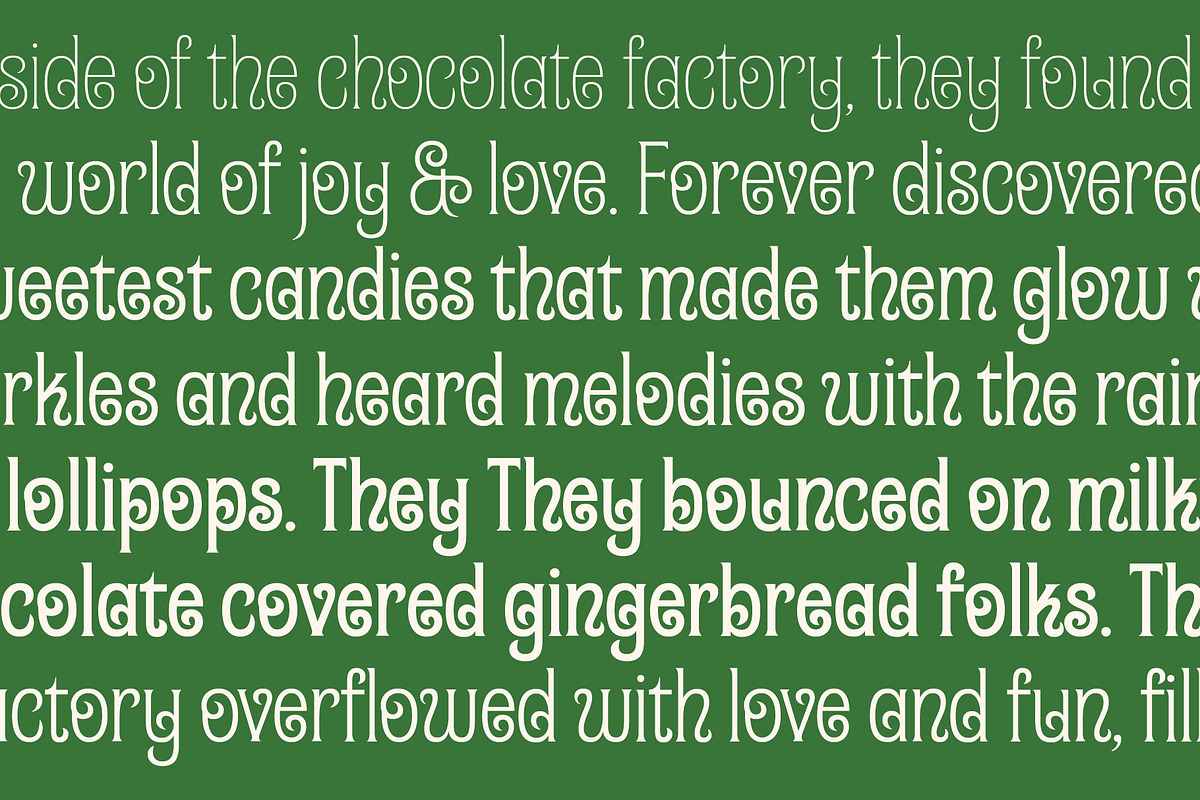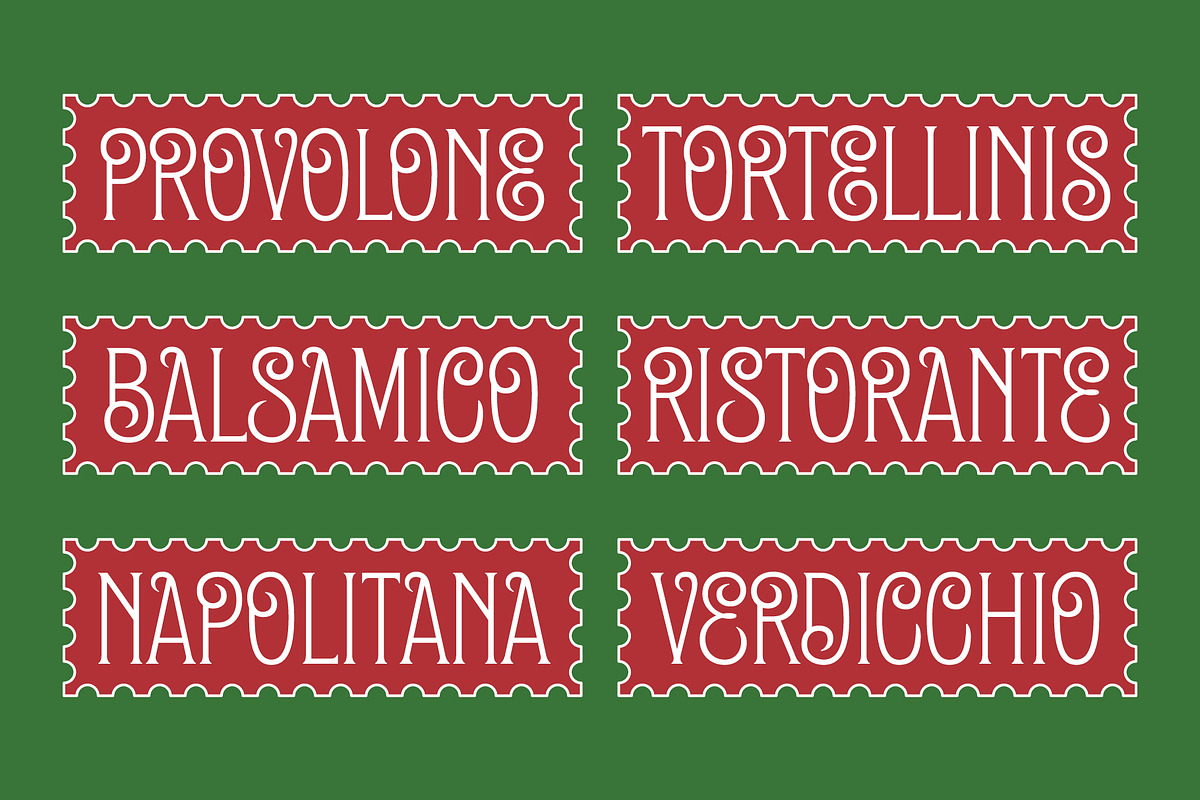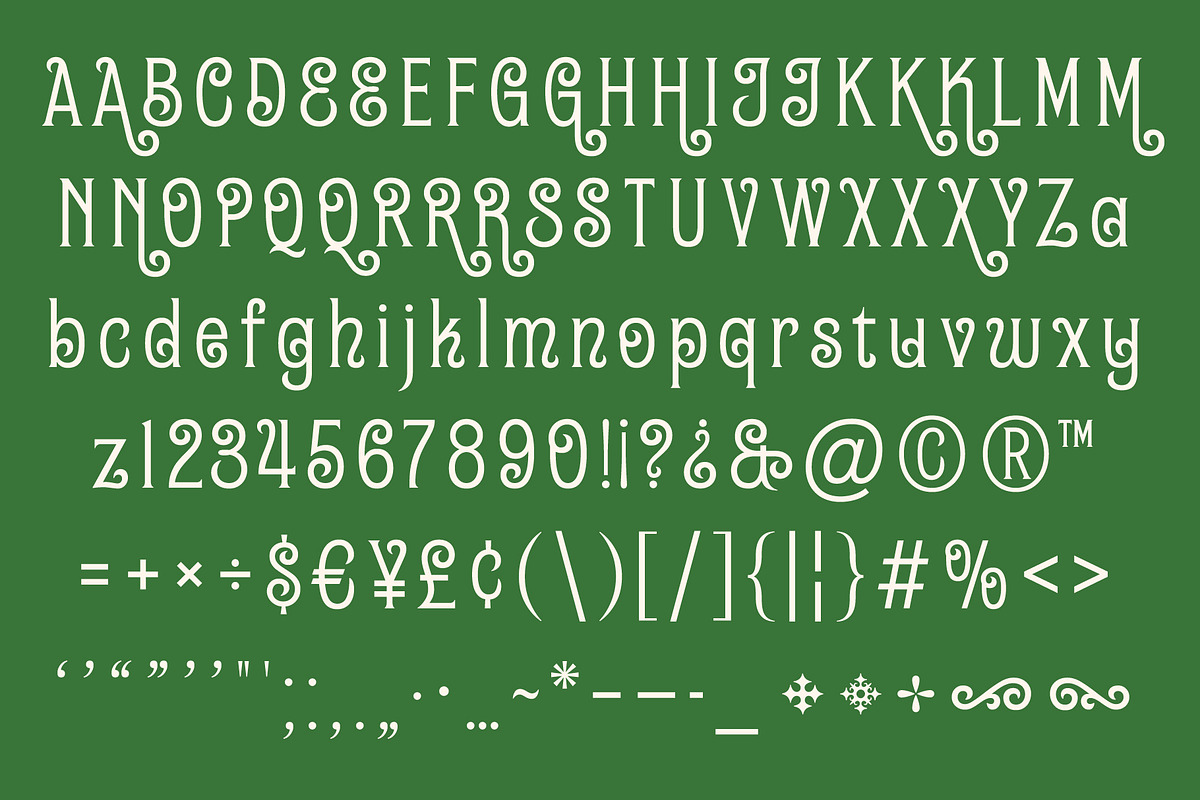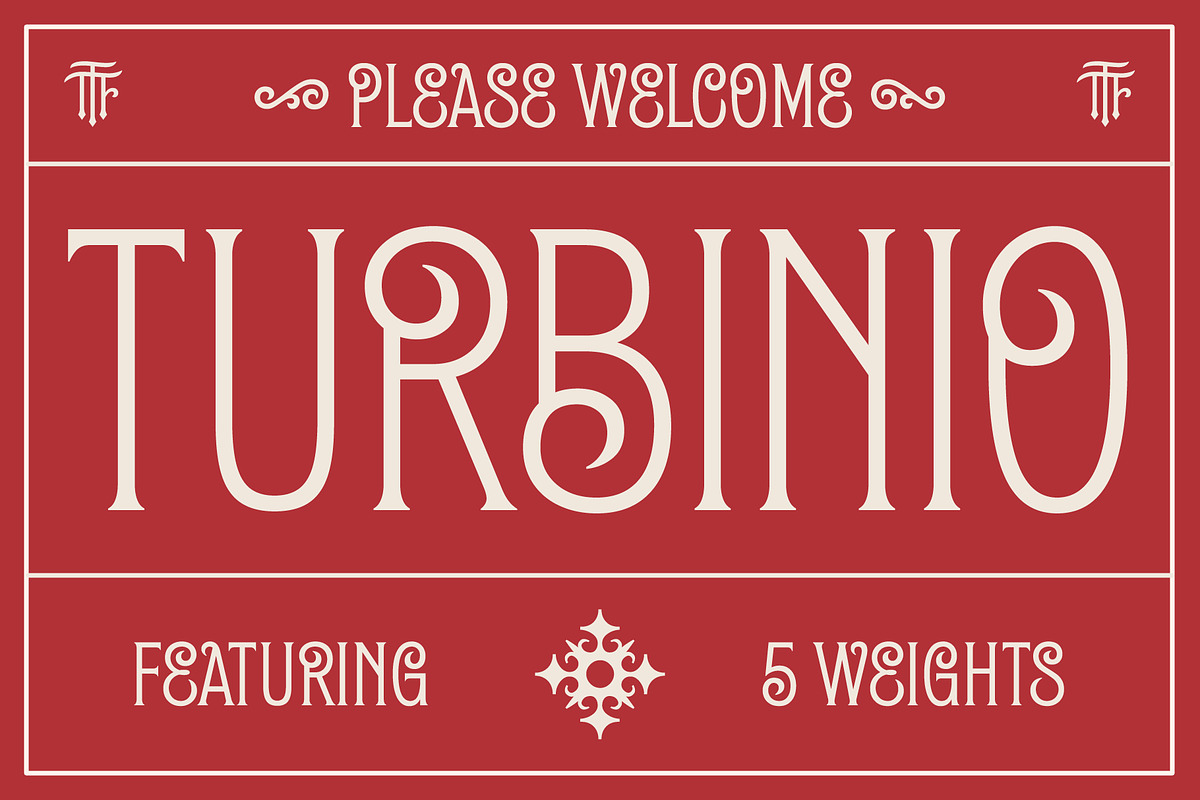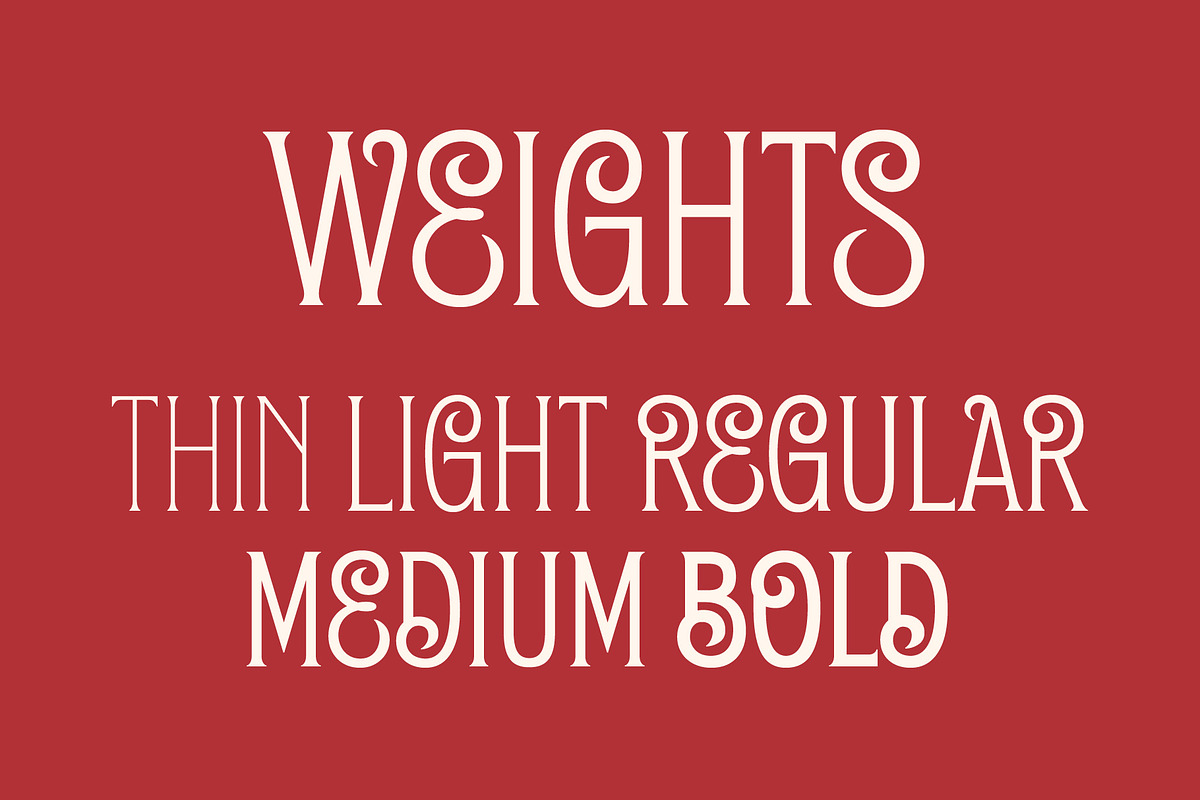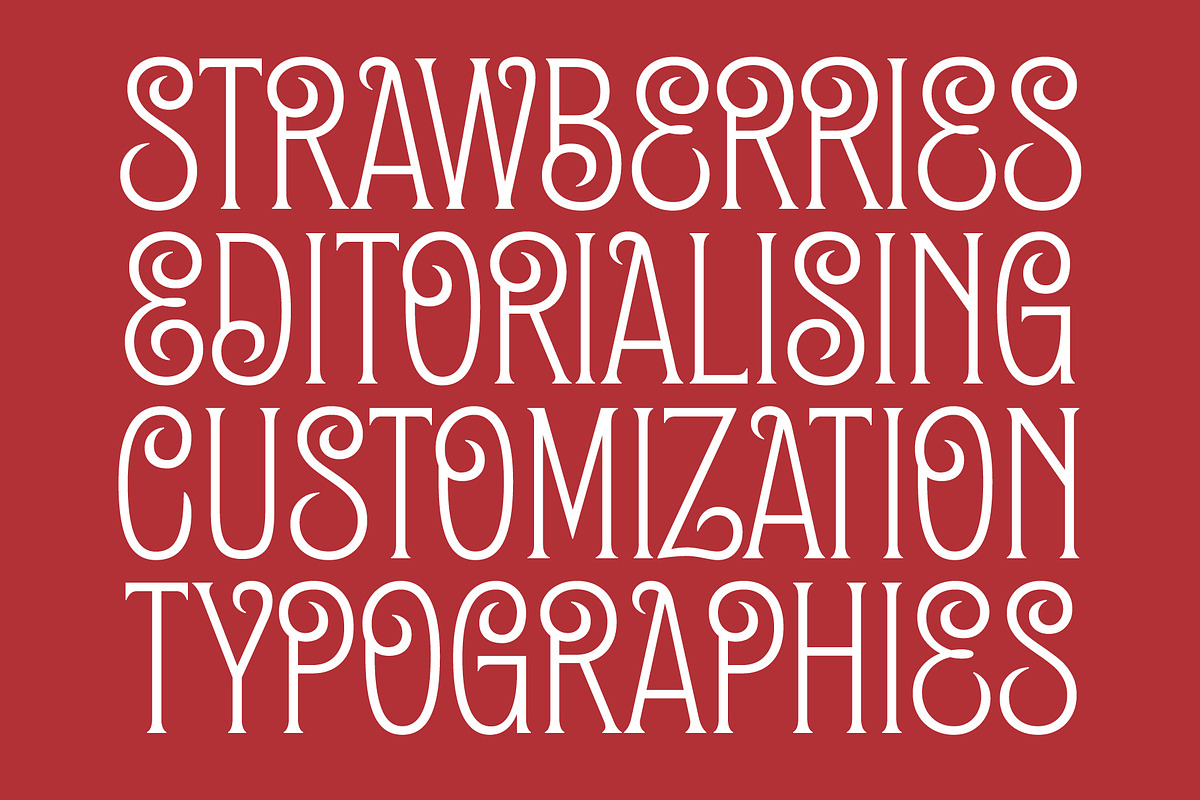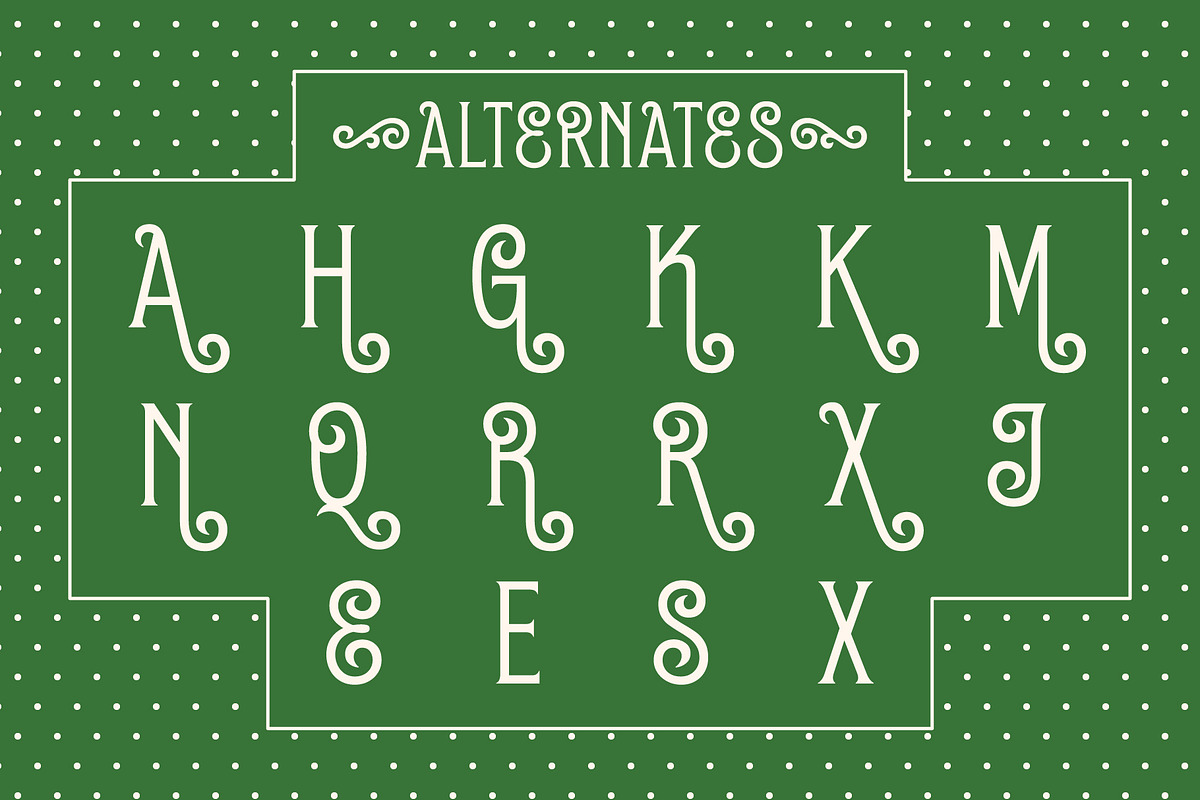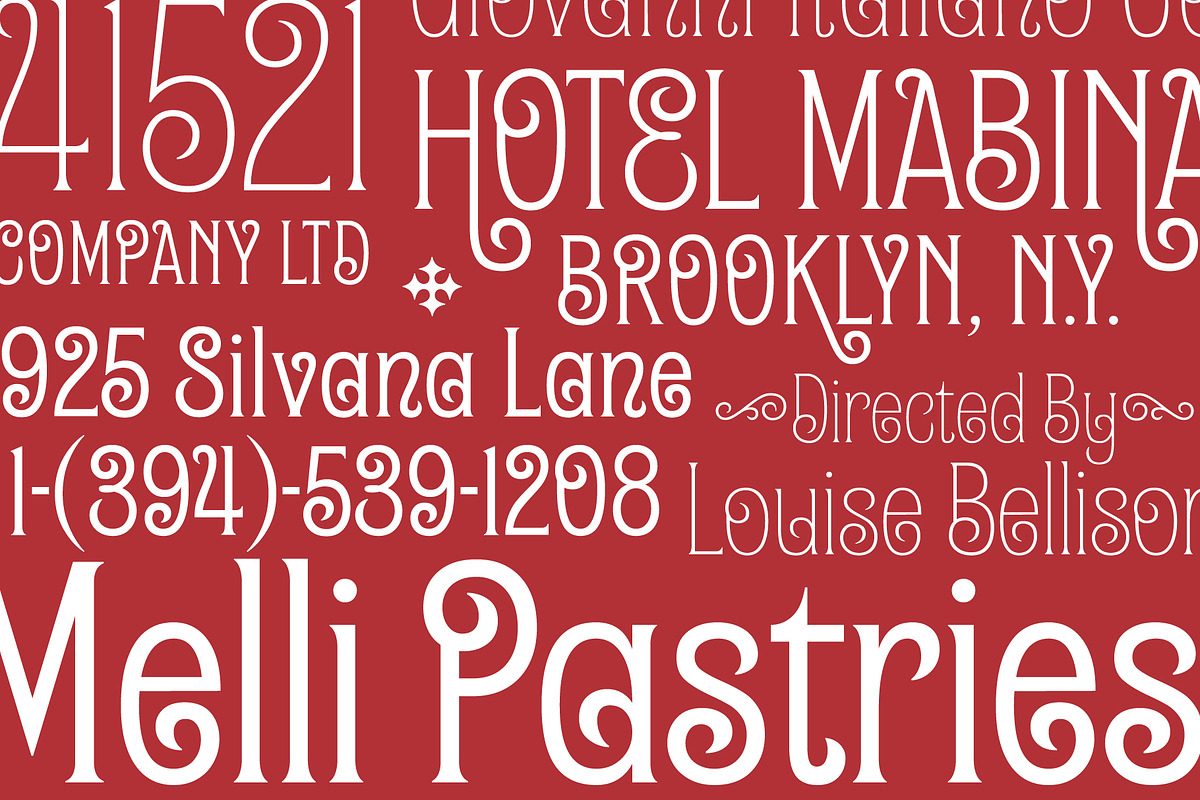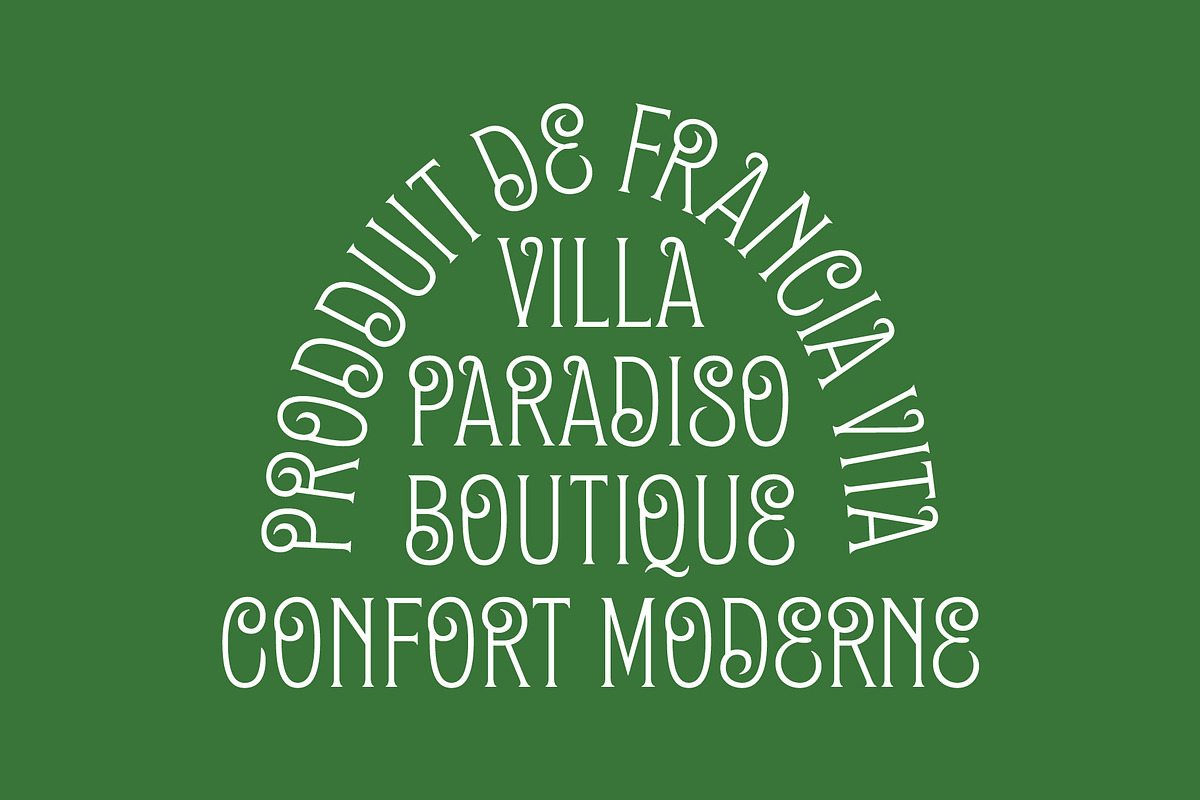
Turbinio - Variable Italian Font
I had the pleasure of serving as a teaching assistant for Kel Troughton’s 2024 Introduction to Modern Type Design online workshop at the Letterform Archive. During this 10-week course, I thought it would be fun to join along the class and set a goal to create a display typeface inspired by early 1900s European hotel signage and food packaging.
Give a grand welcome to Turbinio, a typeface featuring graceful, swirling letters that add a sense of refinement and sophistication to any project. Available in five weights—thin, light, regular, medium, and bold—and offering a variety of alternate characters, Turbinio is ideal for posters, packaging, logos, headlines, and more.